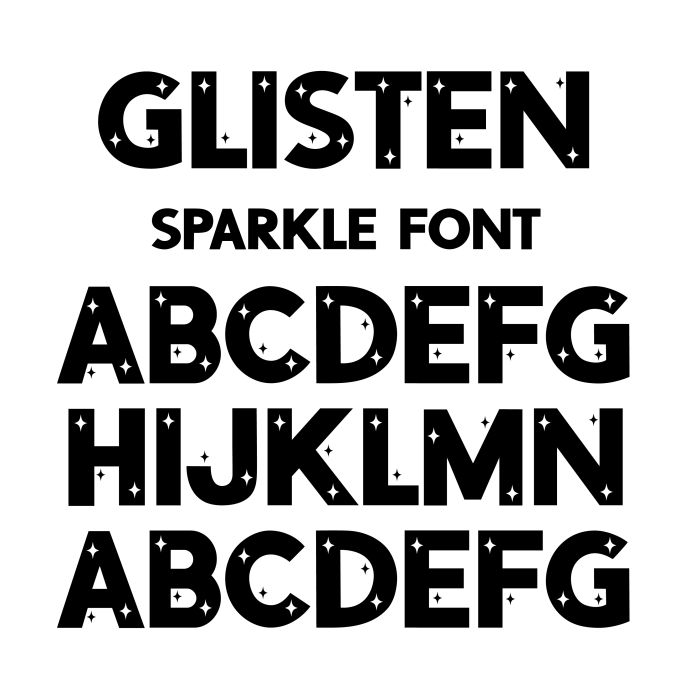
BFC Glisten Sparkle Bold display star font. A crafting font perfect for all your holiday projects! Designed with crafters in mind, it features smooth, bold lines that make it ideal for cutting machines. This festive, whimsical typeface brings holiday cheer to every design, from Christmas cards and gift tags to ornaments and DIY decor. Spark joy this holiday season with a font that’s as merry and bright as your crafts!